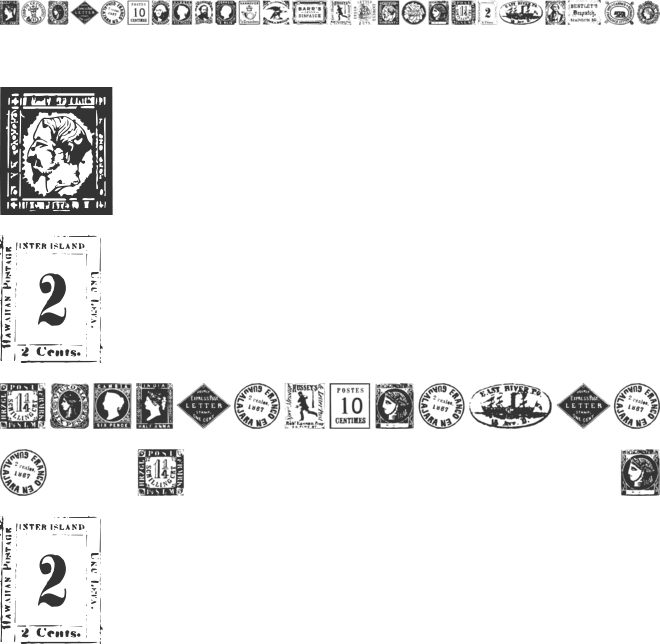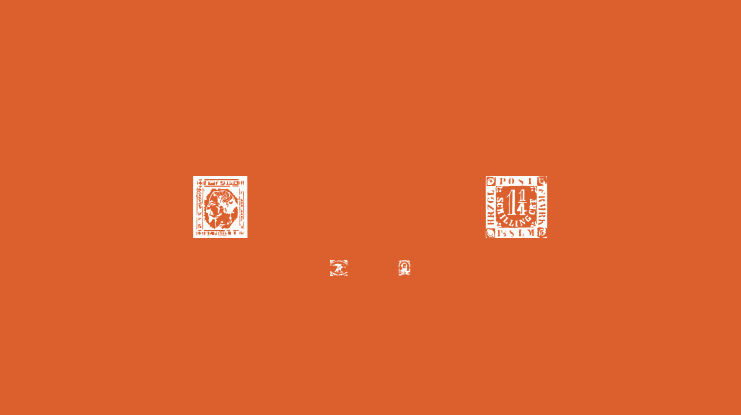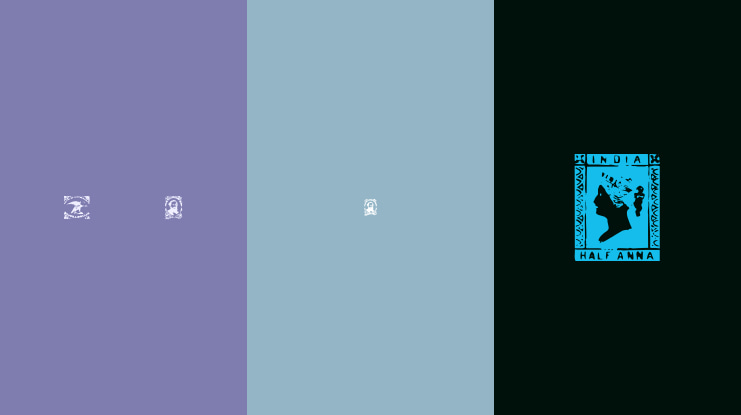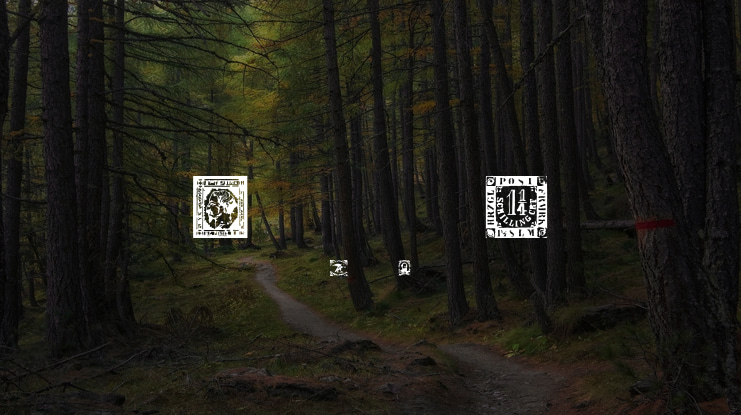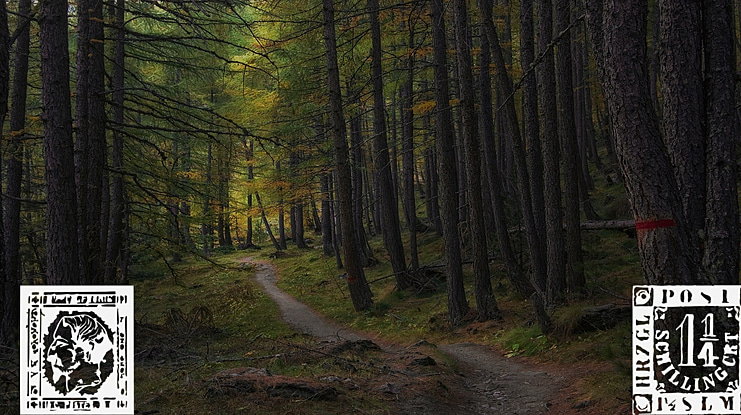
PostageStamps Font
THE TWENTY-FIVE characters in this font are representations of classic postage stamps. Classic stamps are those stamps issued between 1840 and 1870.